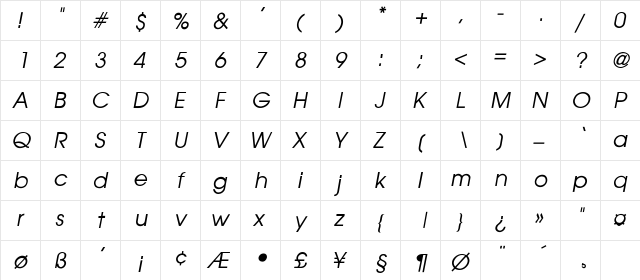
AvantGarde-Thin-Italic Regular Font Preview
AvantGarde-Thin-Italic Regular
Design Context for AvantGarde-Thin-Italic Typeface
AvantGarde-Thin-Italic offers clean, dependable letterforms without strong stylistic allegiance, making it a practical choice for designers who need flexibility. Its italic angle brings a sense of urgency and motion to the letterforms. Its slender proportions lend an understated elegance to any composition.
Pro Tip: Use AvantGarde-Thin-Italic for emphasis, pull quotes, and subheadings where its slanted energy can add rhythm to the layout.